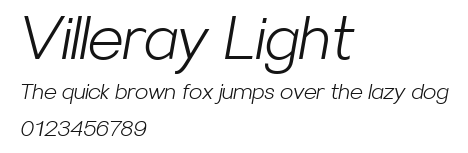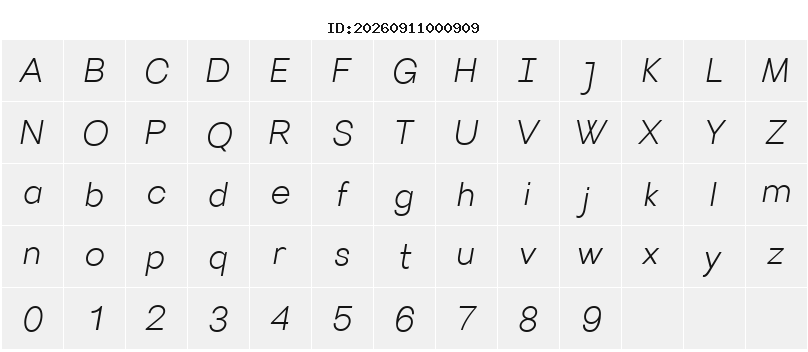
• Font Name: Villeray Light
• Full Font Name: Villeray Light Italic
• Designer: Jérémie Dupuis
• Description: Villeray by Jérémie Dupuis ——FEATURES—— —Supports extended Latin, Vietnamian, extended Cyrillic and monotonic Greek. —Designed for great legibility. —8 weights from Thin to Heavy. —Extended math support. —Many OpenType alternates: - Use Stylistic Alternates (salt) to activate all stylistic sets at once. - Single and double stories ‘a’ (ss01). - Two different number ‘8’ (ss02). - Single and double stories ‘g’ (ss03). - Two different ‘@’ (ss04). - Curly and straight cyrillic letters Zhe, Ka and Kje (ss05). - Two different styles for the braces ‘{’ and ‘}’ (ss06). - Sans serif ‘I’ (ss07). - Alternate vertical terminal ‘S’ (ss08). - Alternate ‘4’ (ss09) - Alternate ‘J’ (ss10) - Alternate straight ‘M’ (ss11) - Alternate long descender ‘f’ (ss12) —Many sets of numbers: - Superscript and subscript (sups and subs), which includes basic math characters (+, -, =, etc.). - Tabular numbers (tnum) for use in tables to align all the numbers together. - Alternate ‘0’ for stylistic or practical use (zero). —Automatic fraction feature (frac) - Just activate the feature on all text and it will only substitute fractions. - Adapted from Tal Lemming’s Fraction Fever 2.
About Villeray Light.ttf
Villeray Light.ttf is a modern, elegant sans-serif font designed for ultimate readability and visual harmony. Perfect for branding, headlines, web design, and print materials.